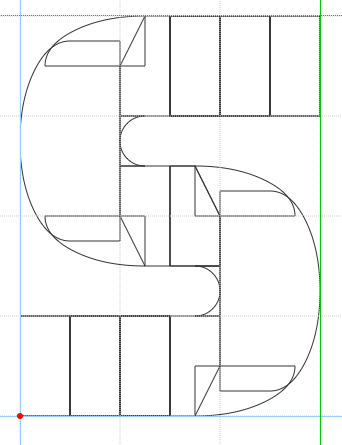
Very well executed font. I like this more "traditional" style of glyphs, much more complicated to do than it seems at first view. Let me indicate a few points (IMHO) that could improve some of your solid designs: the leg of the R should be a little more inclined, like the K; the 4, B, P, R should appear a little wider for my liking; the second bar of the F must be a little bit longer; the L a bit narrow; posible optical increment for C, G, O, Q, 0, 8... Well, they are only my points, the font works fine. I've used too a mix of bricks to do some curves like your S in a non published font, I add you a sample.
@Elmoyenique Thanks! I also made the 4, B, P, and R slightly wider (without making them too wide). (Also made the angle of the leg of R the same as K…)
Cyrillic added! (I might use the Kratka above the И on the Latin letters as the Breve)
Nice! “Д” and “Л” look a little bit too wide for me and the so-called кратка seems a bit too big, but I like that serif on the letter “З”. It differentiates it from the number! I’m a big fan of this font. Well done.
@"The_Con-Man" Thanks! Also made Д and Л narrower…
As for the kratka, I'm still trying for scale it 75% it's size legitimately and maintain thickness (no clipboard manipulation/custom sized bricks via Dev Tools)…
this is very nice, I'd rater use this then Arial